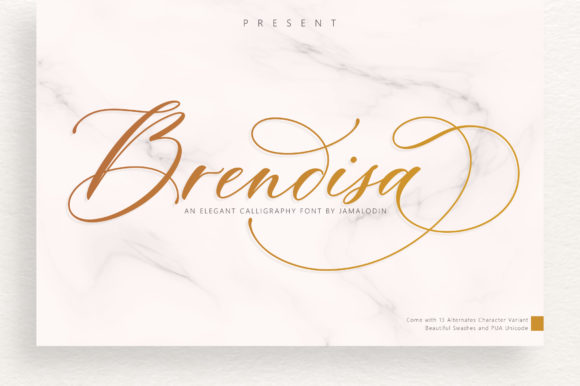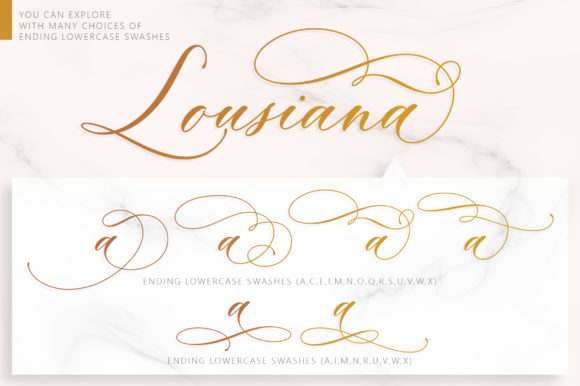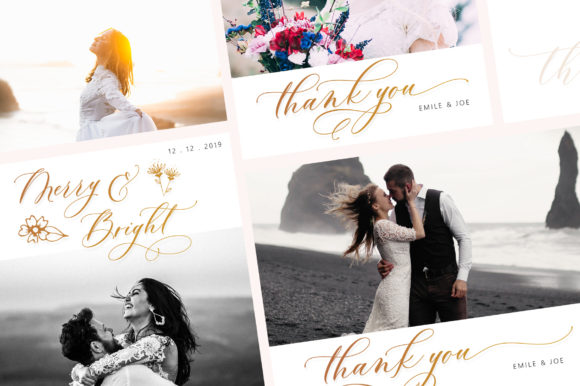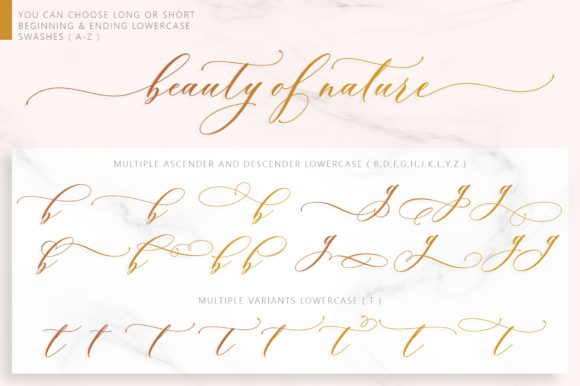
Brendisa Font: Elegant Calligraphy Script for Wedding & Logo Design
About the Brendisa Font
The Brendisa Font offers a perfect balance of form and function for your design needs. Brendisa is a modern calligraphy script font. Add this font to your favorite creative ideas and notice how it makes them come alive!
Brendisa’s fluid strokes and elegant swashes make it ideal for projects requiring a touch of sophistication. It excels in headlines, logos, short quotes, invitations, and social media graphics where its calligraphic nature adds visual interest. Avoid using it for large blocks of text or body copy; its ornate style can hinder readability in longer passages.
The font’s personality is distinctly elegant and modern, lending itself to brands focused on luxury, fashion, or the arts. Consider pairing Brendisa with a clean sans-serif like Lato for a balanced contrast, or a geometric sans-serif such as Montserrat for a more contemporary feel. A subtle serif like Merriweather could also work well, offering a touch of classicism to complement Brendisa’s modern calligraphy.
For a more playful feel, a simple, rounded sans-serif would lighten the overall mood, while a bolder, more condensed sans-serif could provide a striking juxtaposition. Avoid pairing it with other script fonts, as this could lead to visual overload.
Brendisa Font Usage Examples
Brendisa Font Example